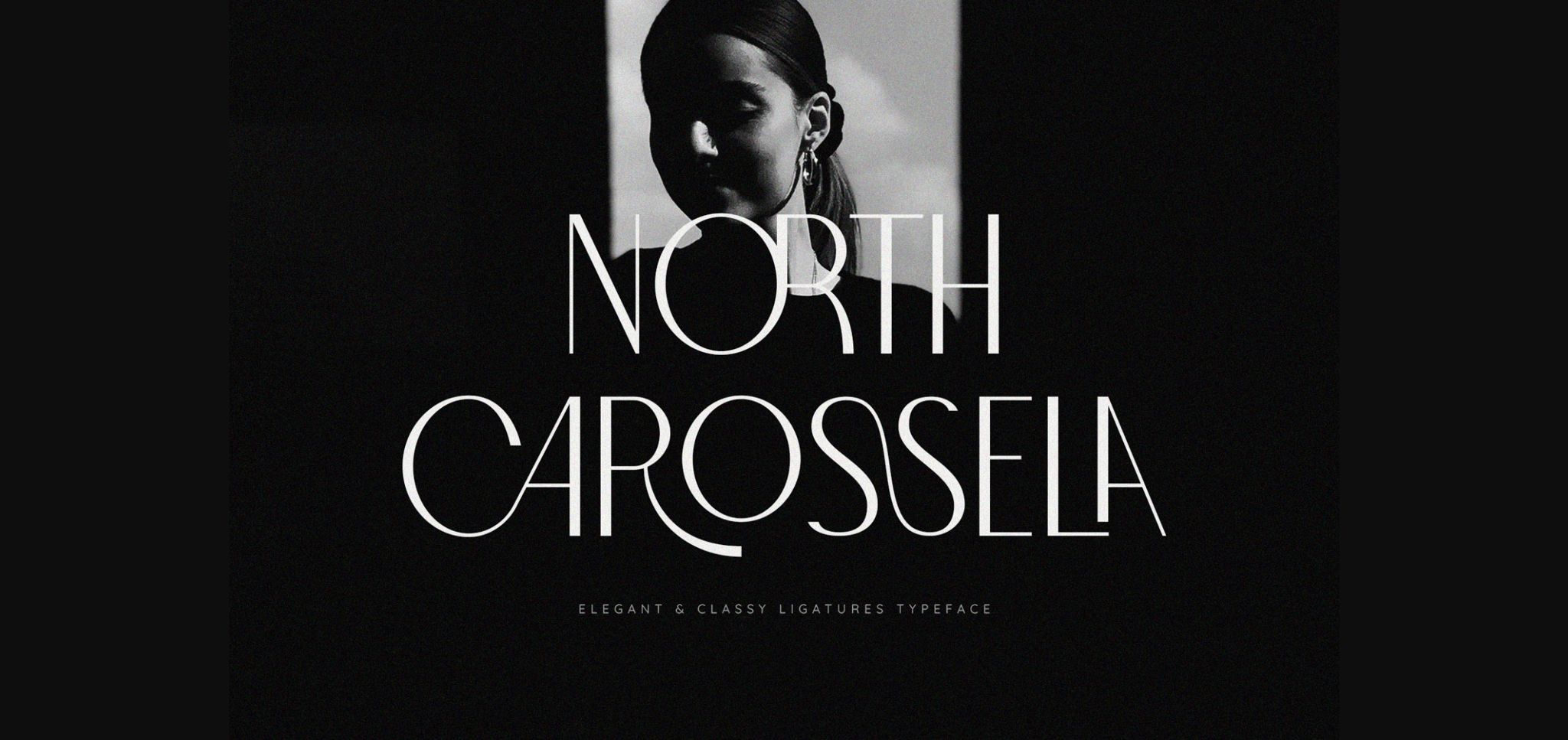
About North Carossela Font
North Carossela is an incredibly unique yet simple and elegant sans serif font. Suitable to a wide variety of designs due to its simple style, North Carossela has the potential to become your favorite go-to font, no matter the occasion!